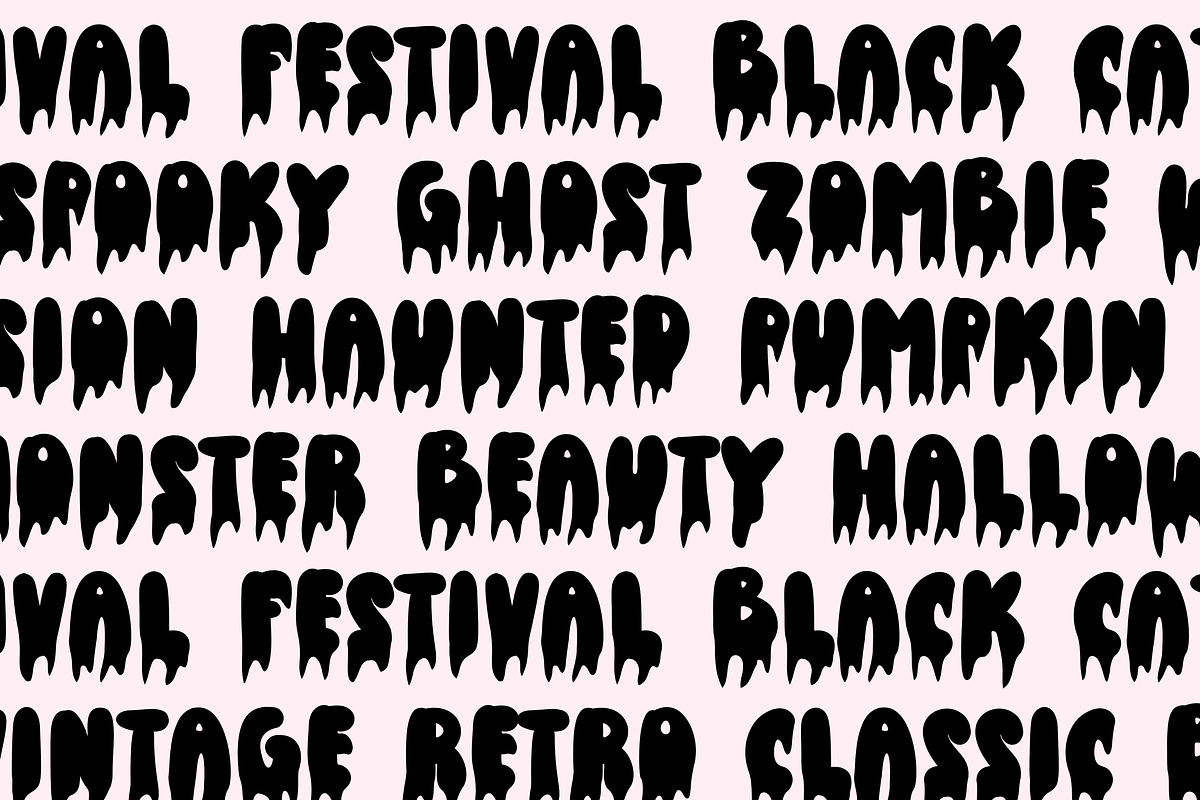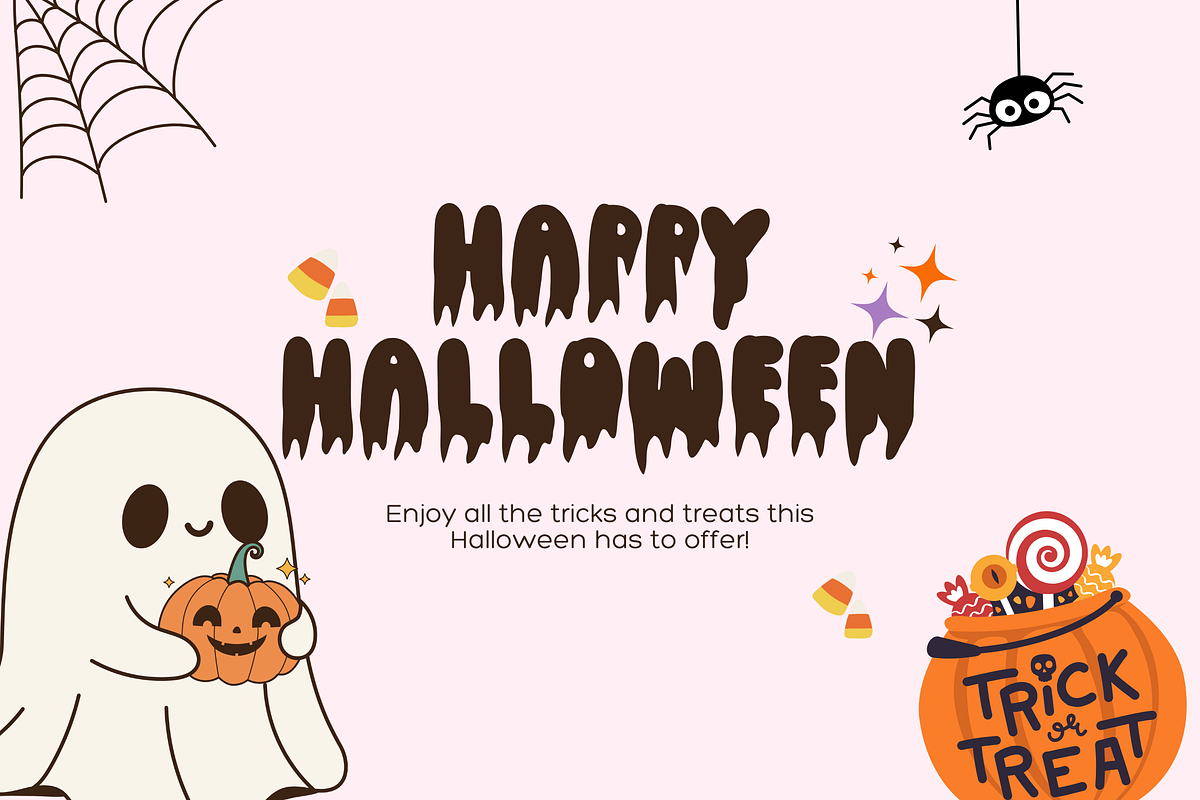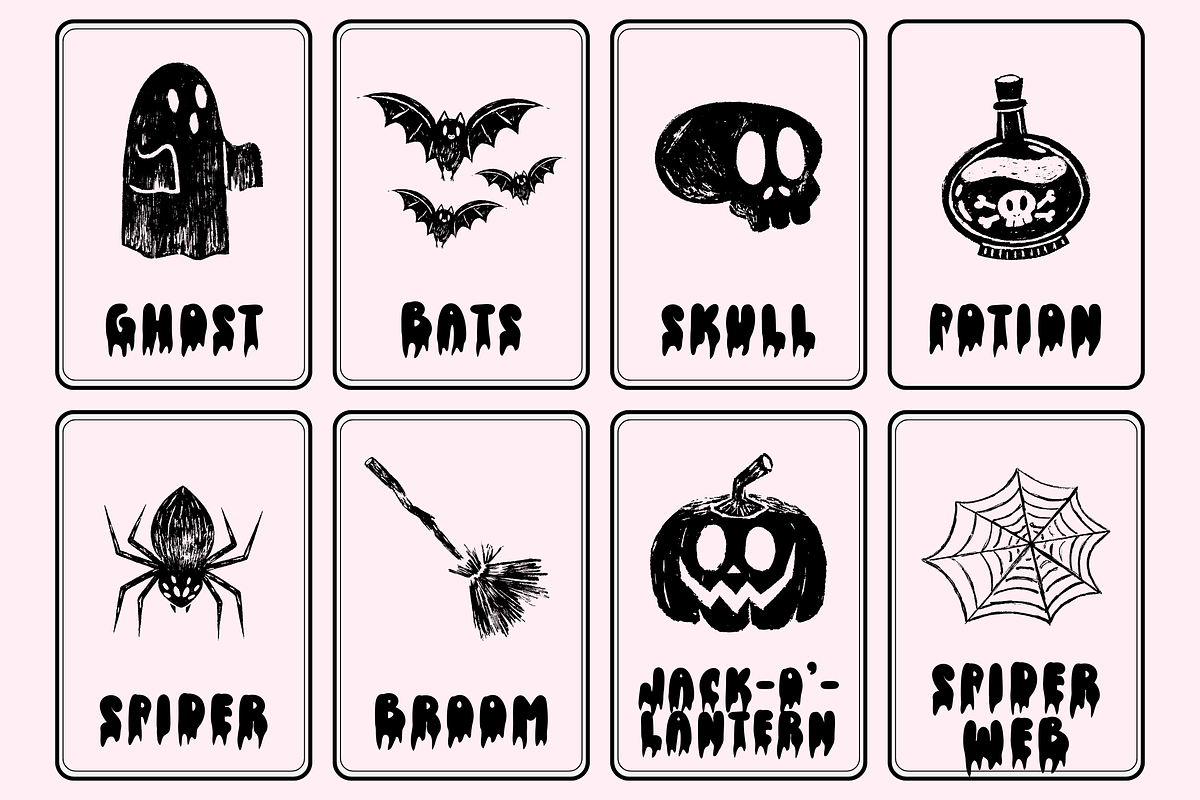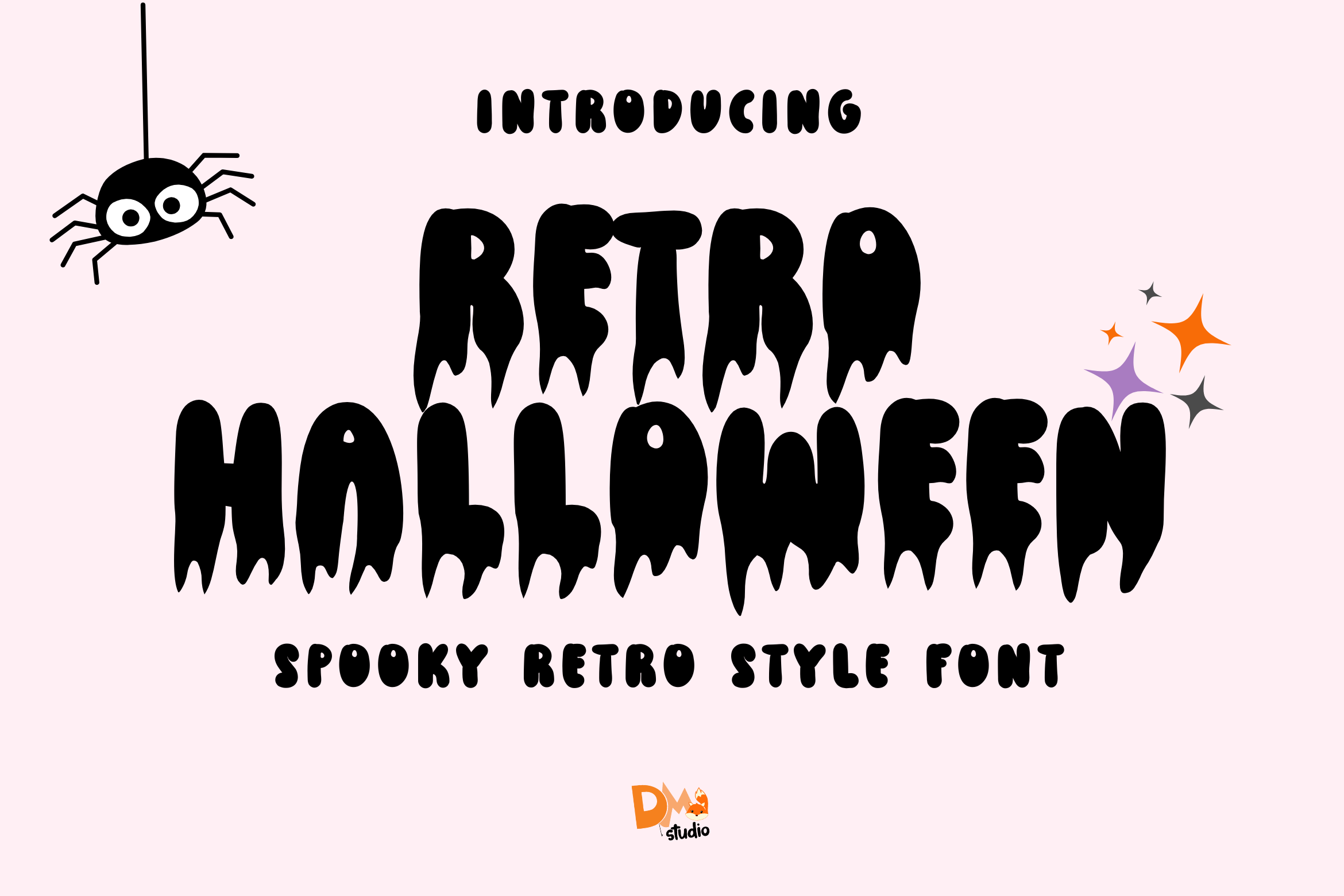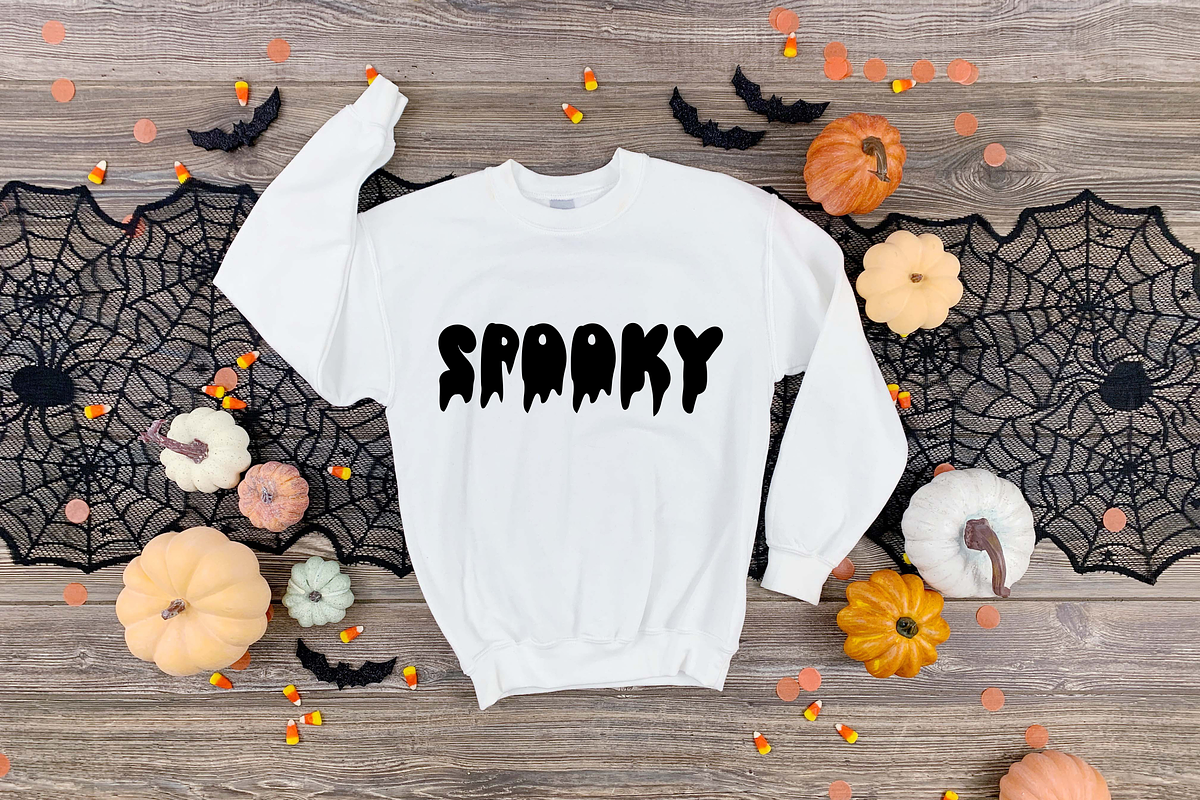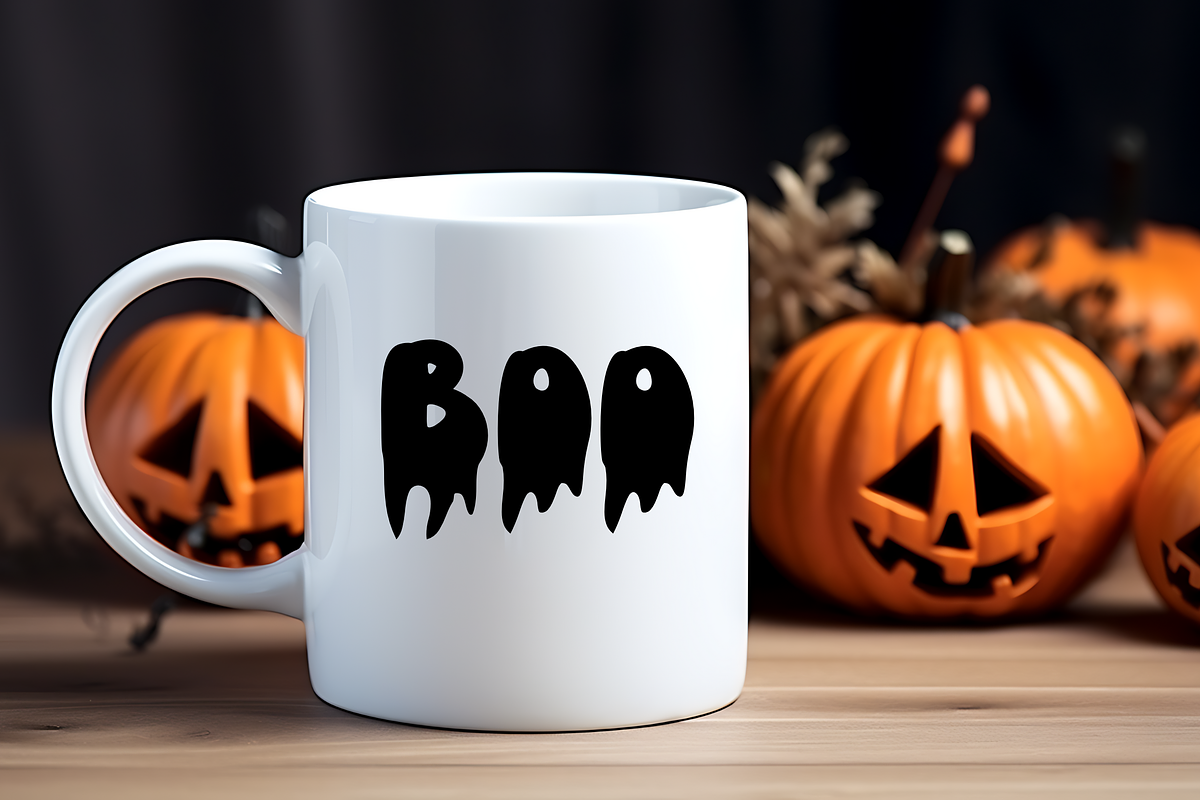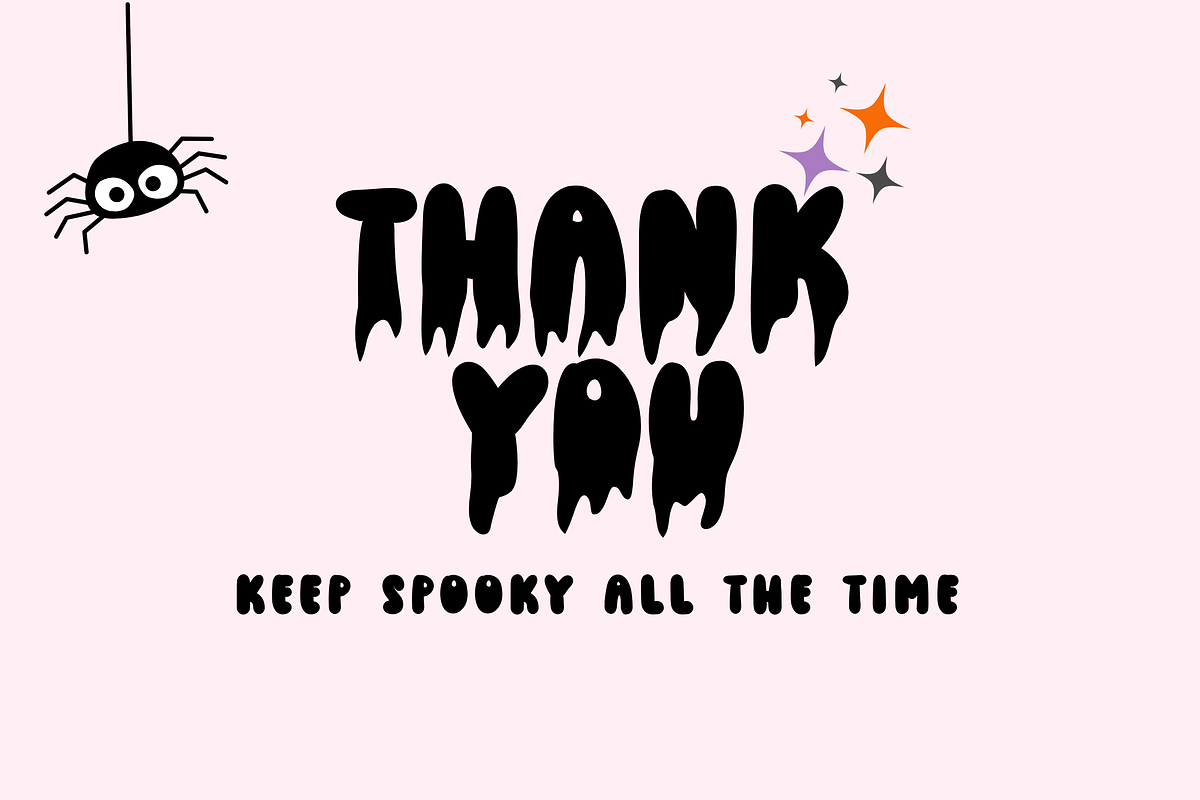
Retro Halloween Font
Retro Halloween Font is a spooky, vintage-inspired typeface that brings classic Halloween vibes to your designs. With its bold and playful letterforms, this font evokes the charm of retro horror movies, haunted houses, and classic Halloween decor. Perfect for Halloween party invitations, seasonal decorations, posters, and merchandise, Retro Halloween Font will add a nostalgic yet eerie twist to your projects. Its unique style stands out and captures the essence of Halloween in a fun, vintage way.
- Retro and Spooky Design: Brings a vintage Halloween aesthetic with bold, spooky lettering.
- Perfect for Halloween Projects: Ideal for Halloween party invitations, posters, decorations, merchandise, and social media graphics.
- Bold and Eye-Catching: Designed to grab attention with its fun and eerie style.